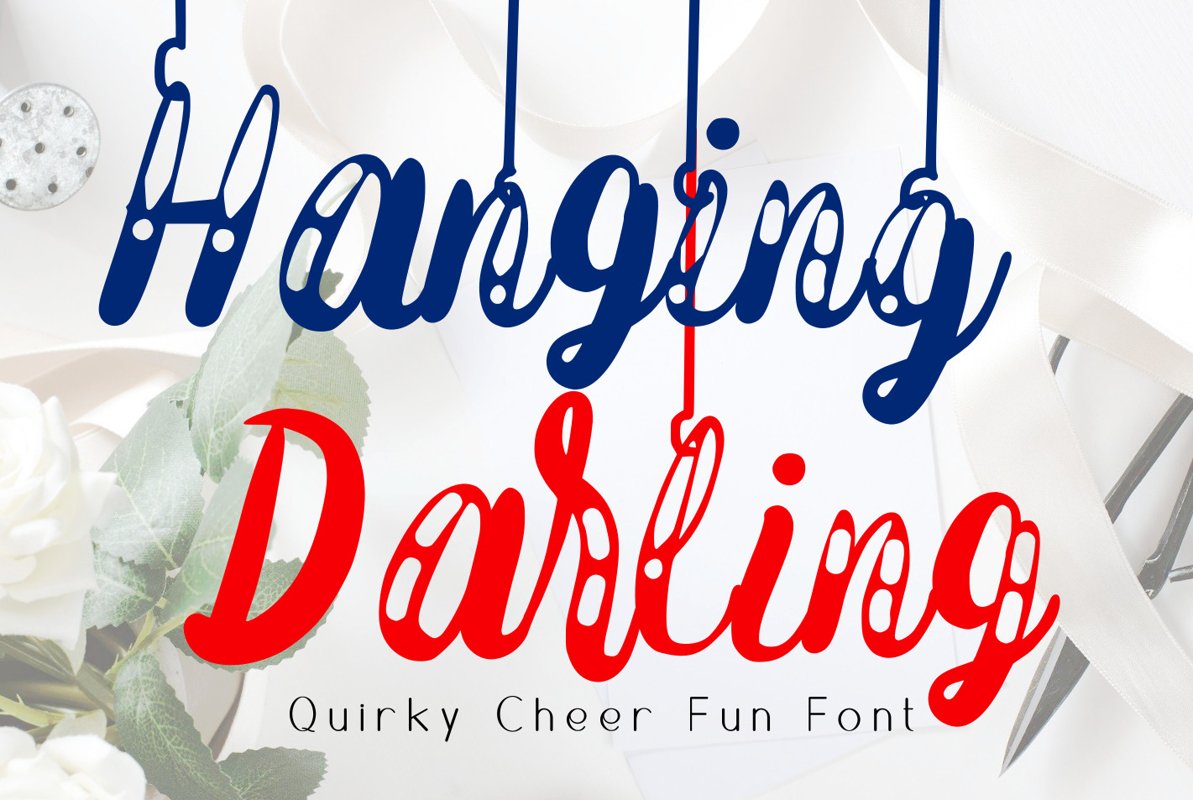
Hanging Darling Decorative Holiday Font
Hanging Darling is a hanging font that displays hanging
glyphs for upper and lower case characters. It also includes PUA encode for two
alternate glyphs with easy access. Use the Hanging Darling font to turn each
design into the happiest design in seconds.